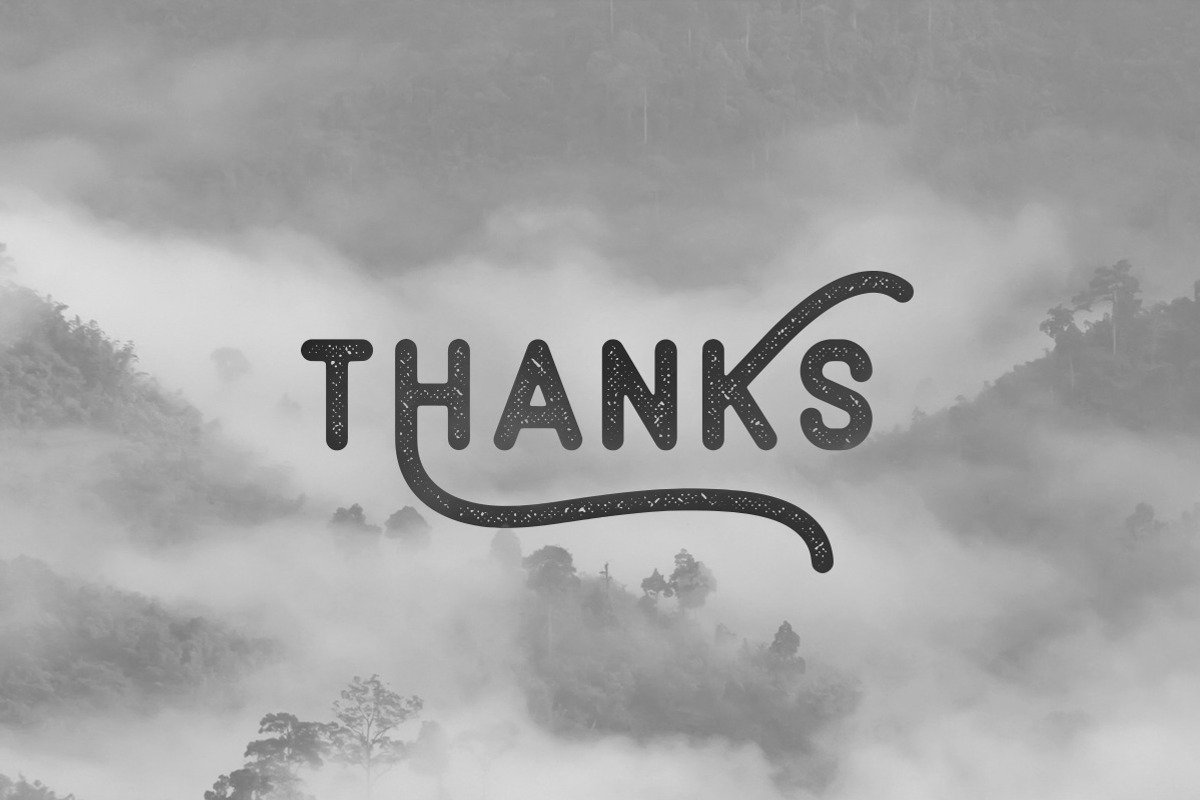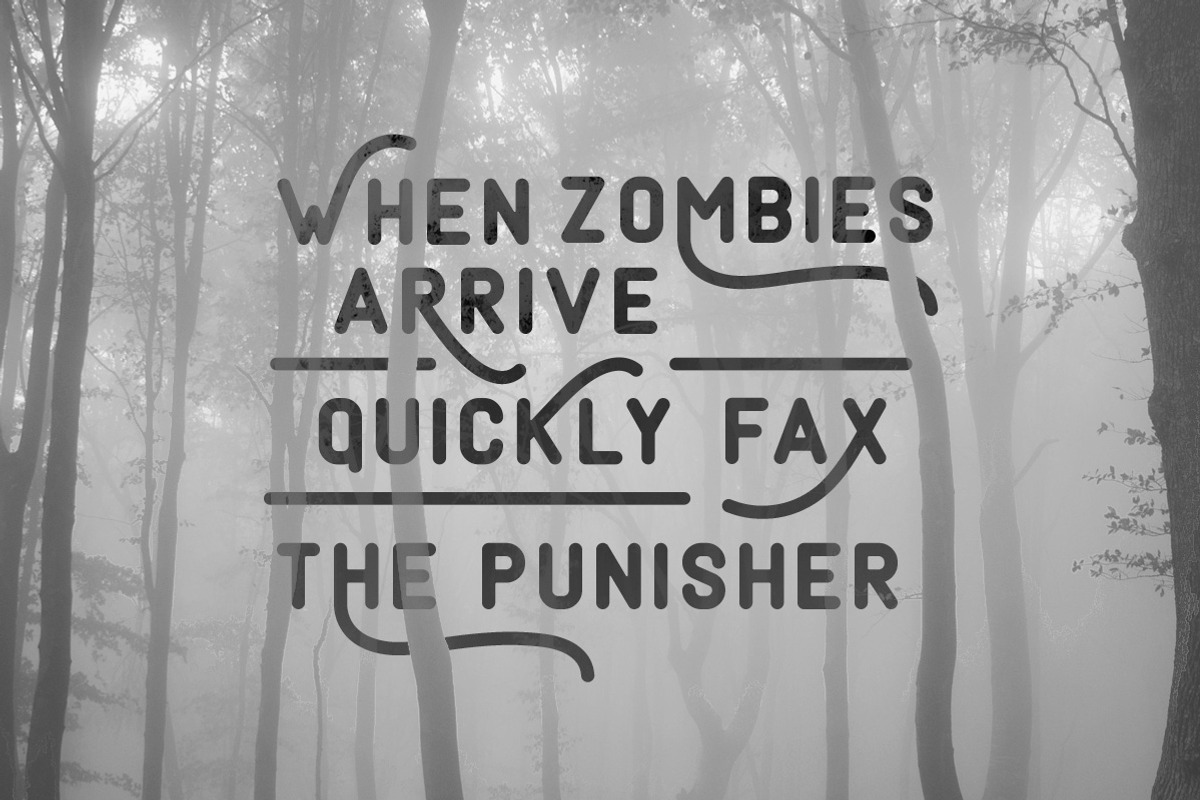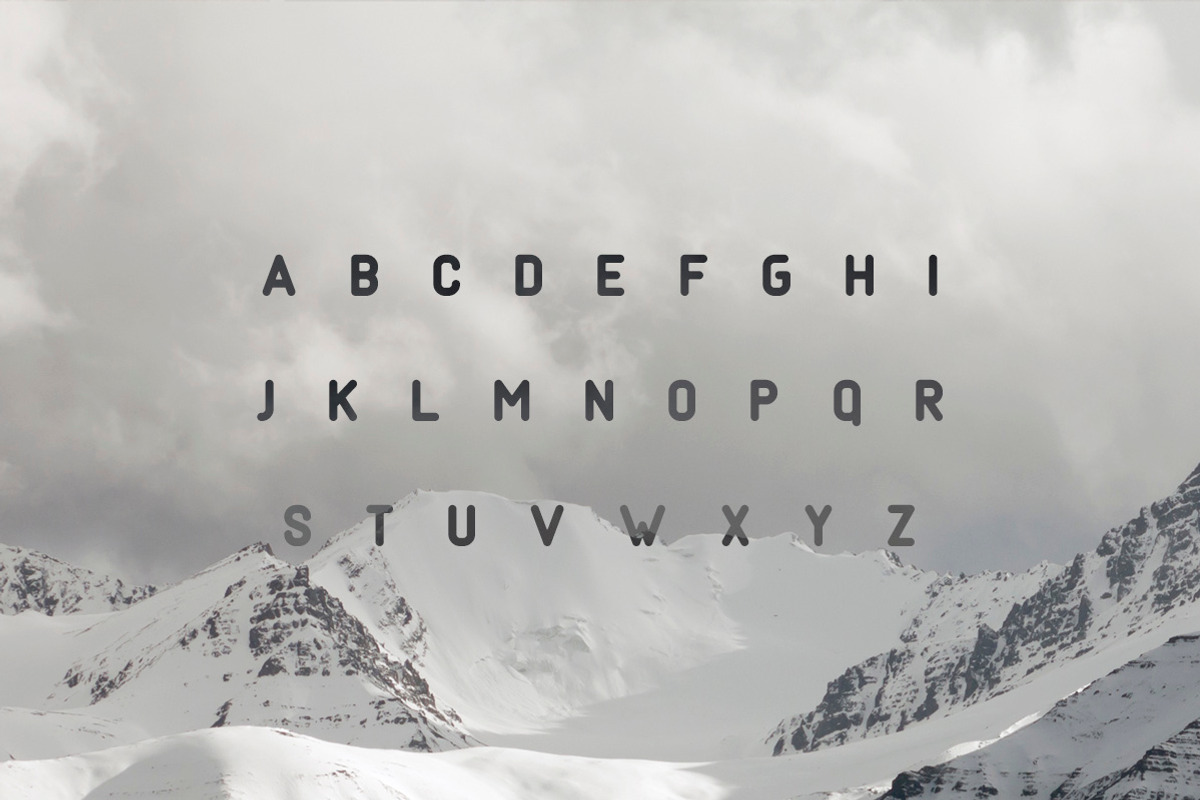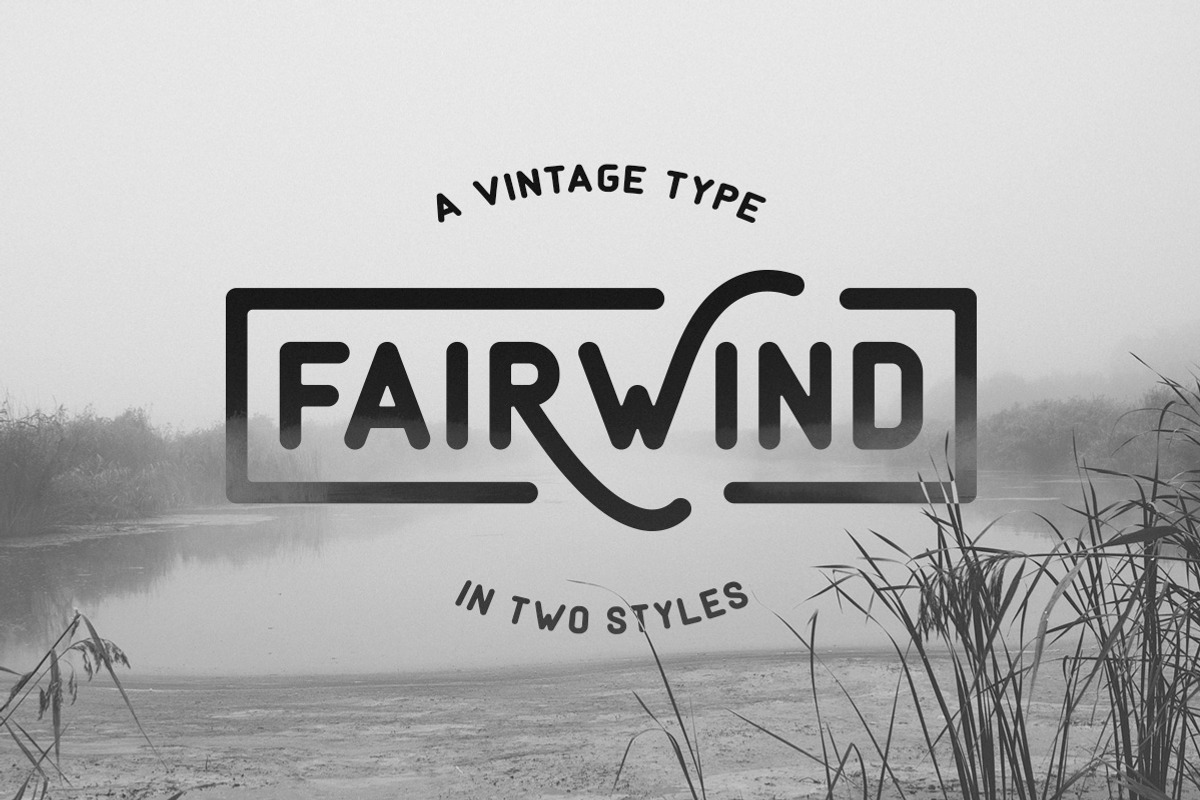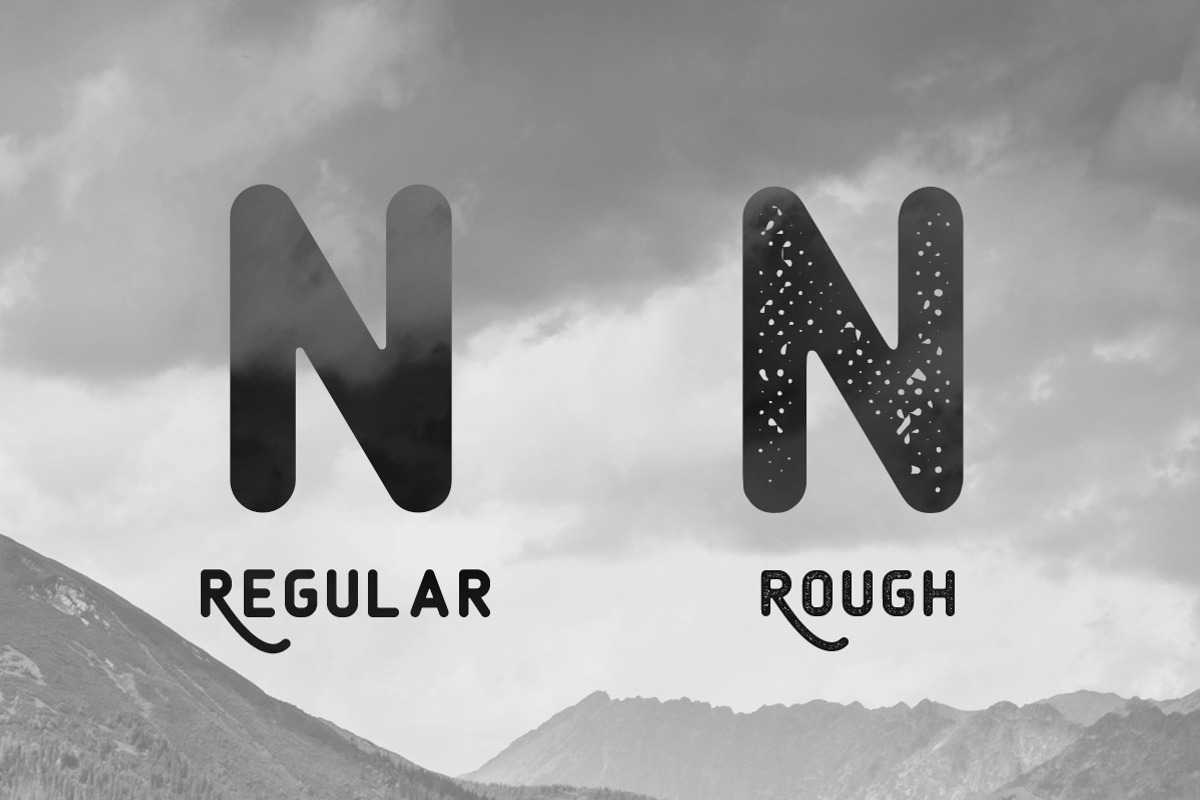
Fairwind Typeface
Fairwind Typeface by Tugcu Design Co. is a font selected for branding, posters, packaging, typography.
- Includes Rough and Regular versions Includes custom stylistic alternates for some letters which can be accessed through the glyphs panels of
Why Fairwind Typeface is worth a look
Fairwind Typeface by Tugcu Design Co. fits naturally into Branding, posters, packaging, typography.